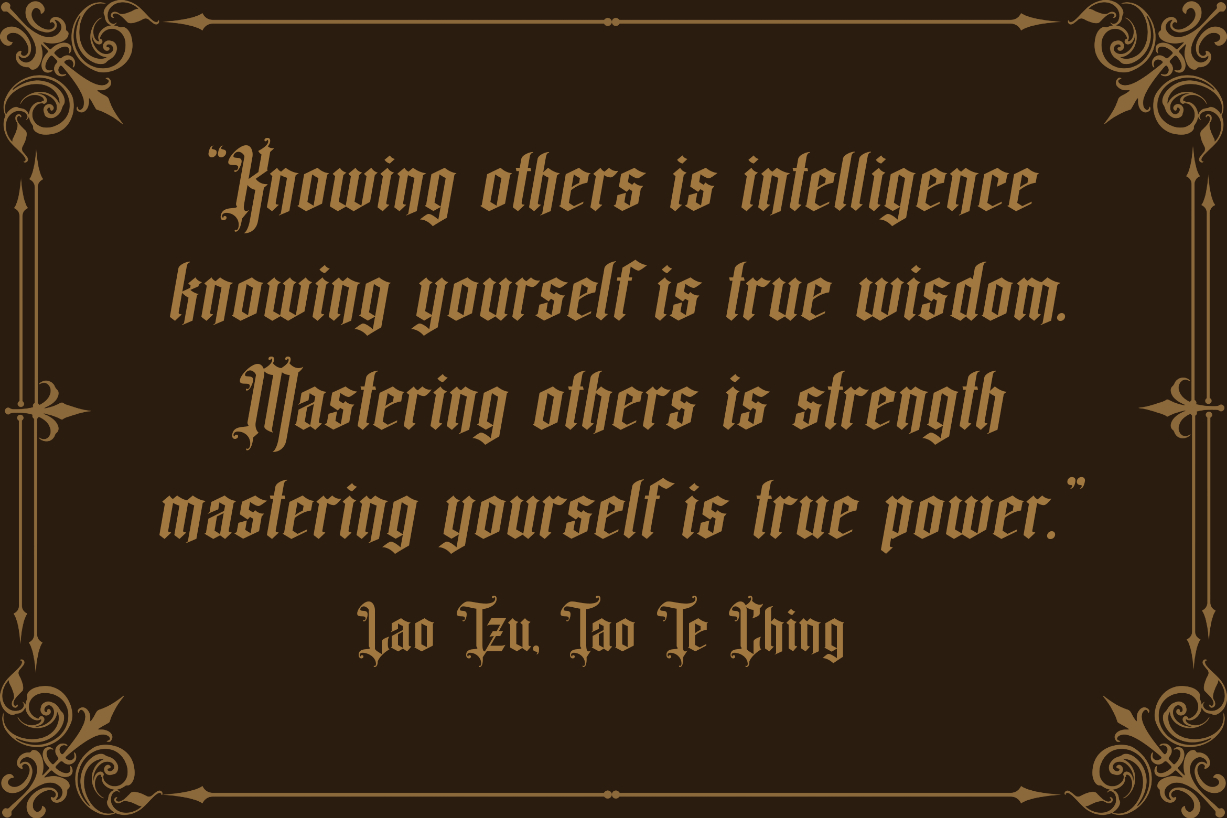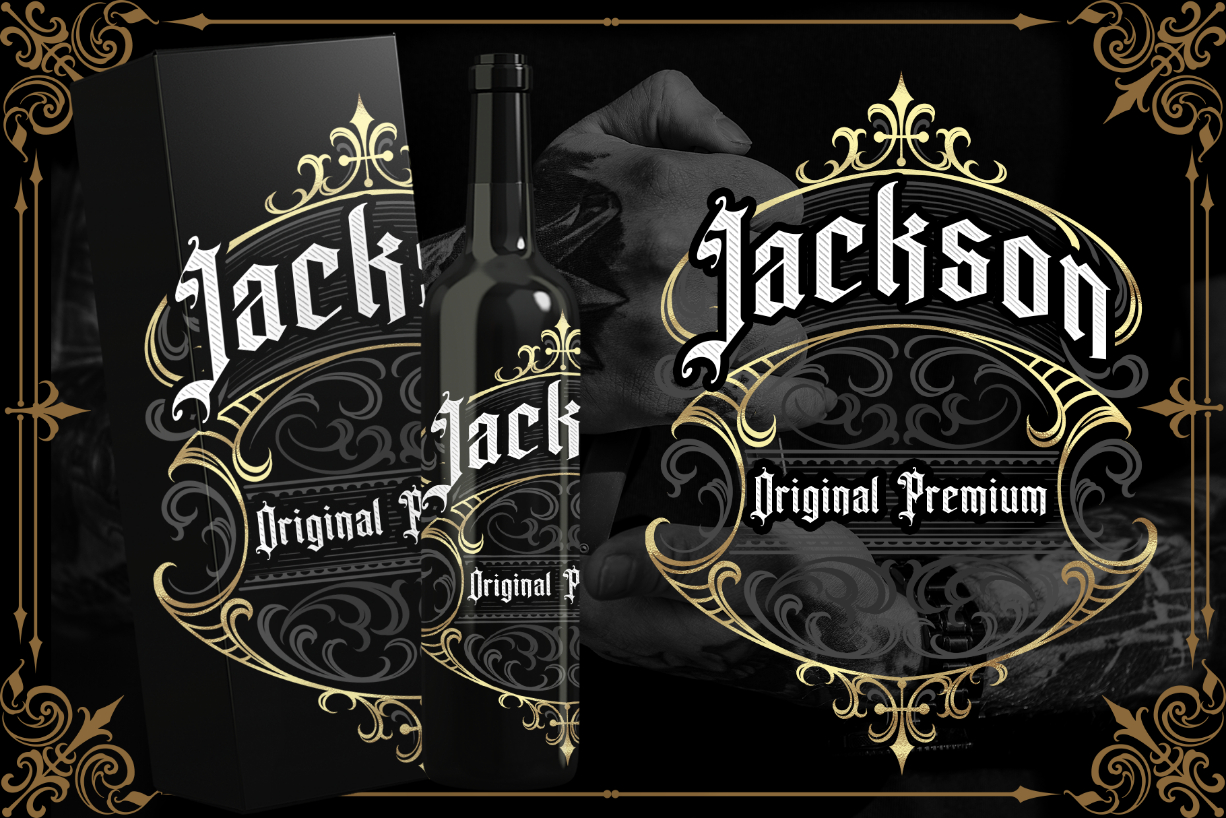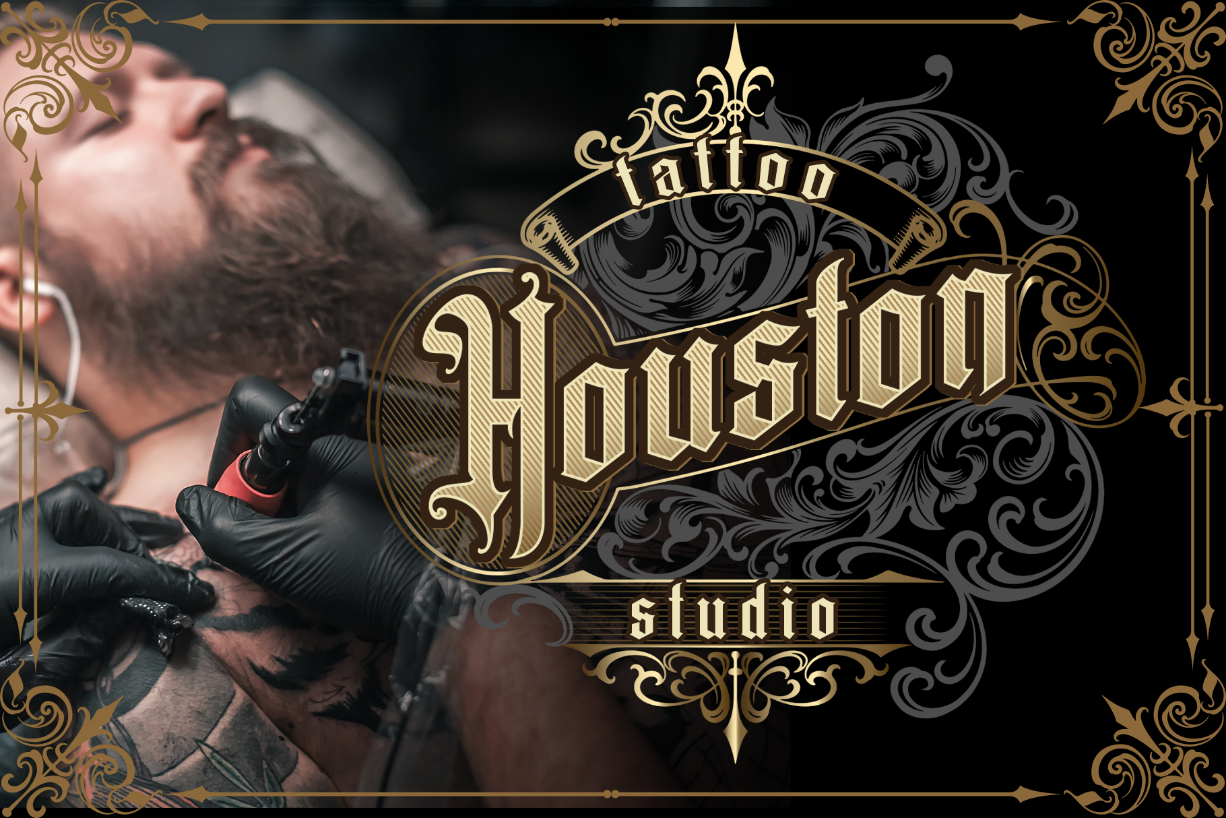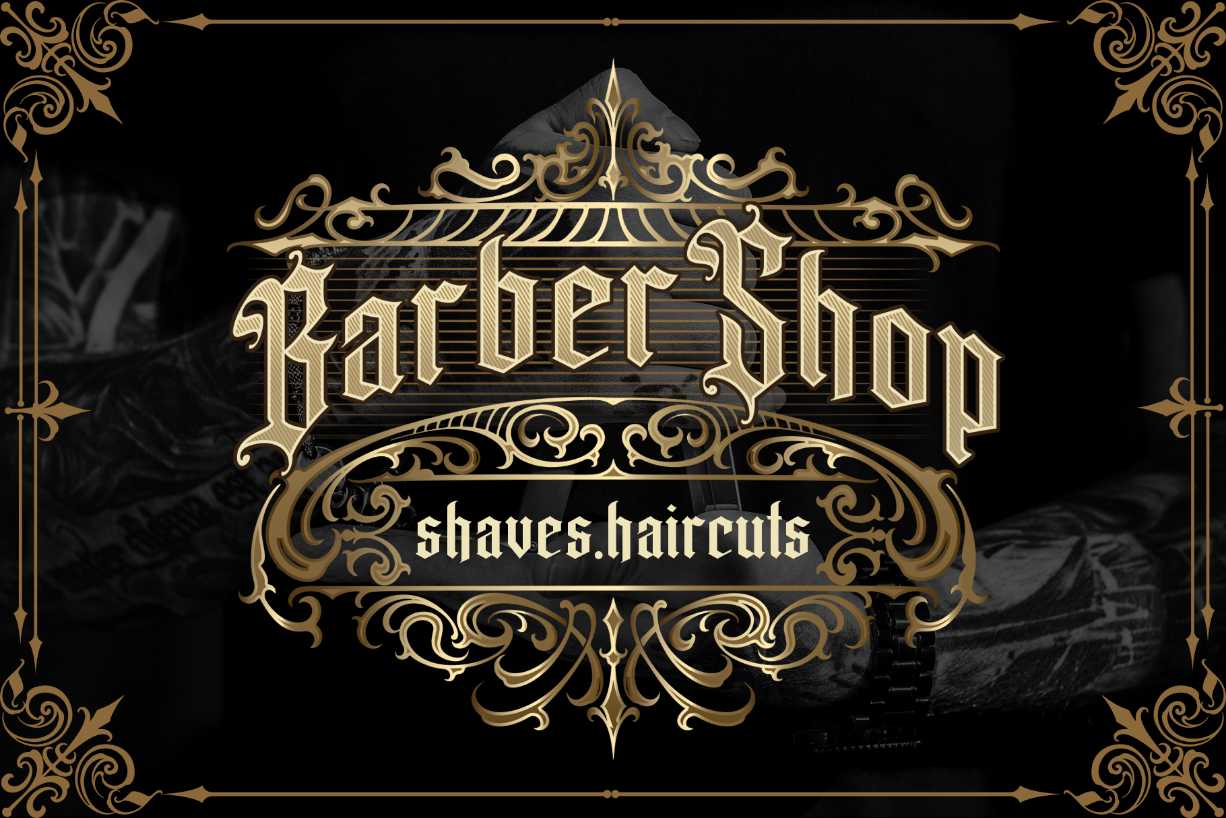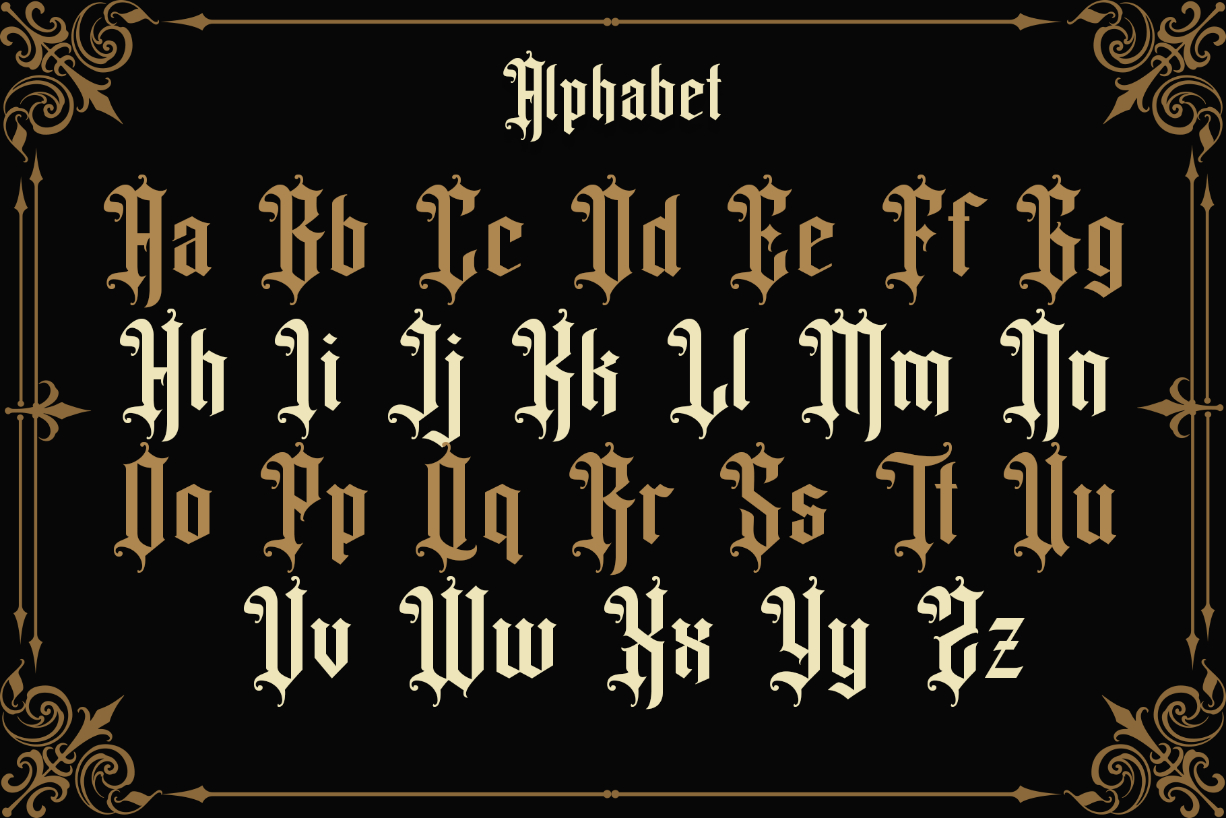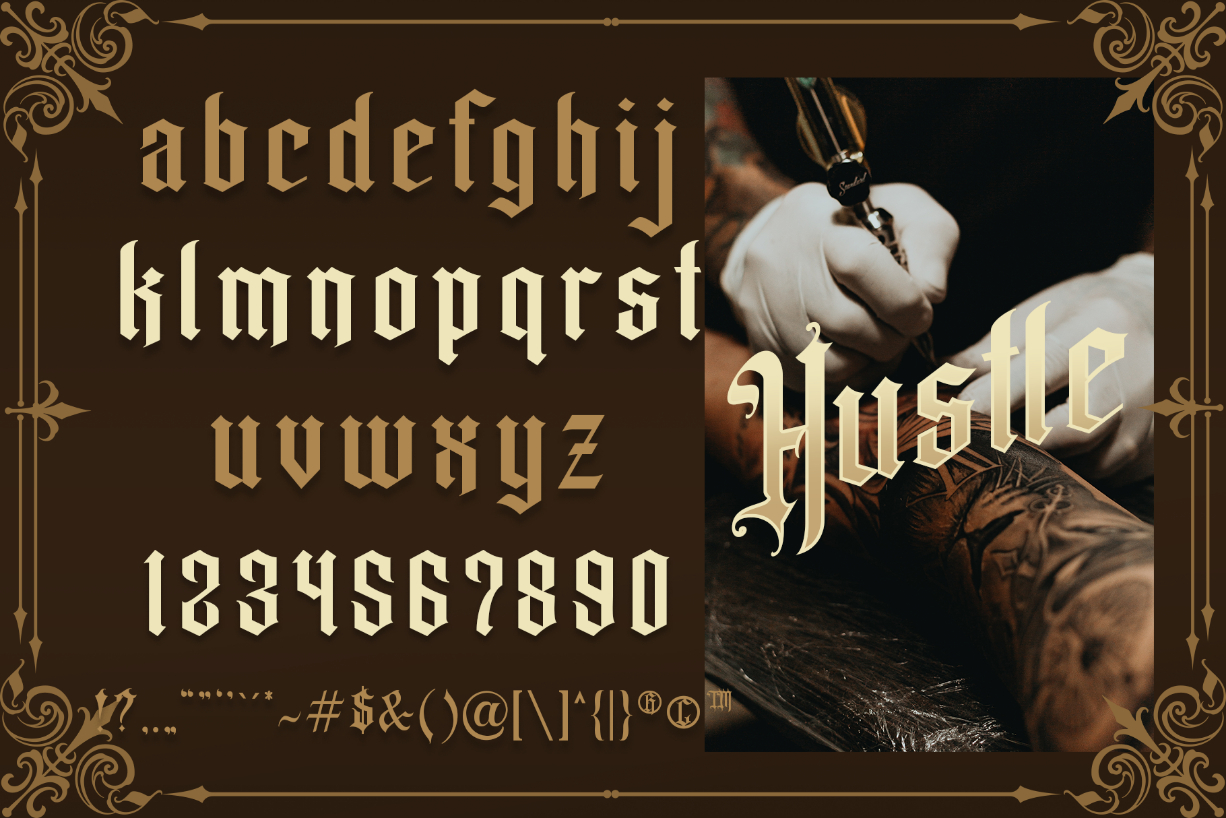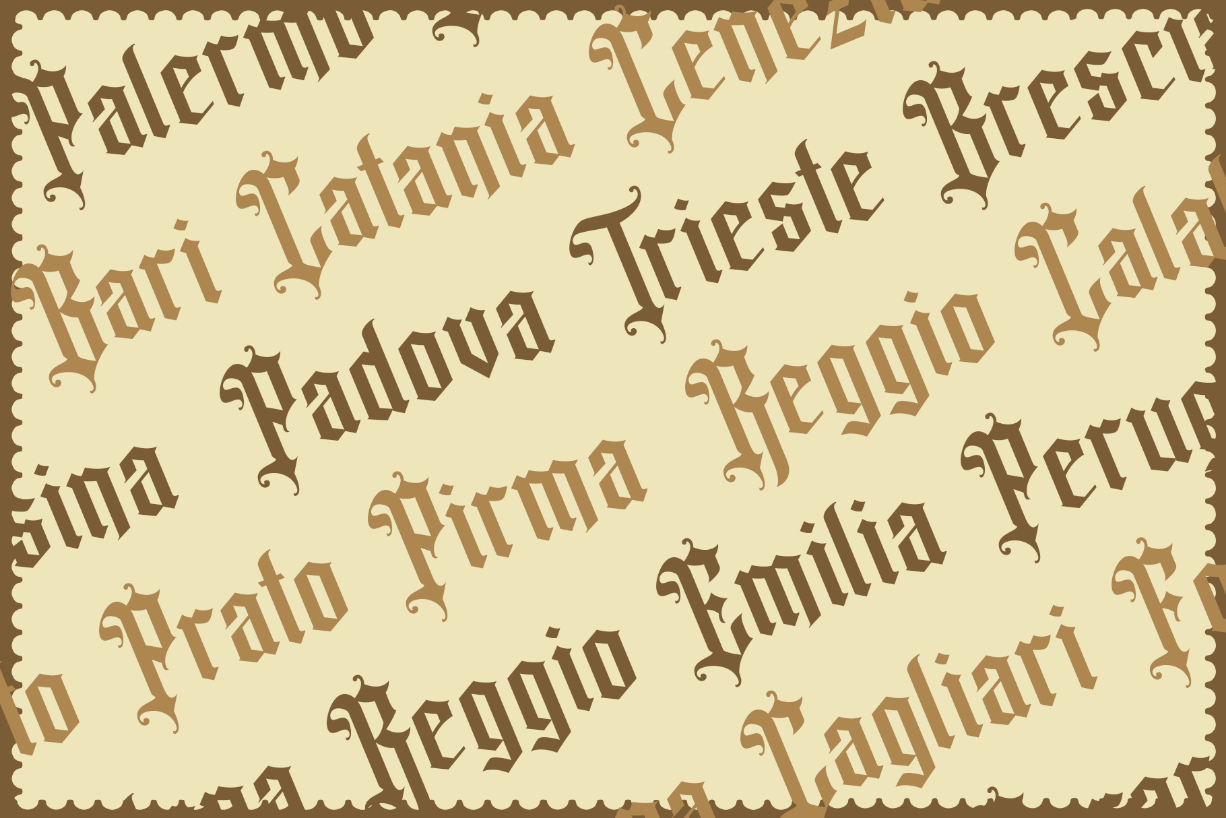
Cleanthes Font
About Cleanthes Font
Cleanthes a distinct, highly detailed, and chic blackletter font. It would make a great choice for exquisite retro-urban designs, tattoo business branding, logos, vintage designs, and more.